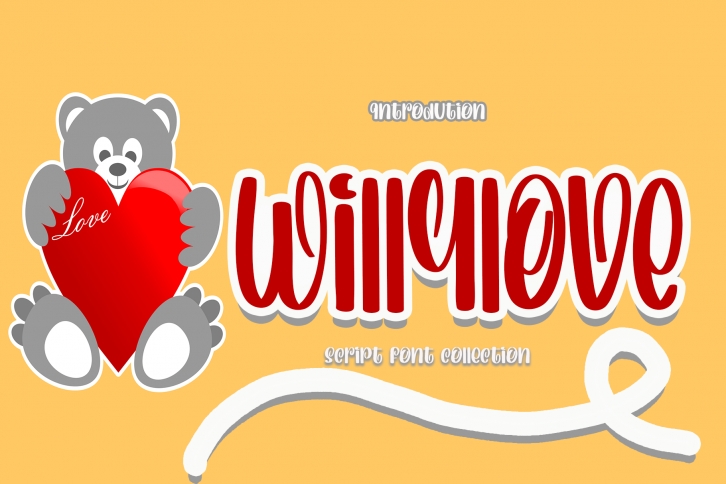
Willylove is a dainty, genuine, and cursive handwritten font. This gentle font will look gorgeous on a variety of design ideas. It will add a joyful and romantic touch to each of your projects!